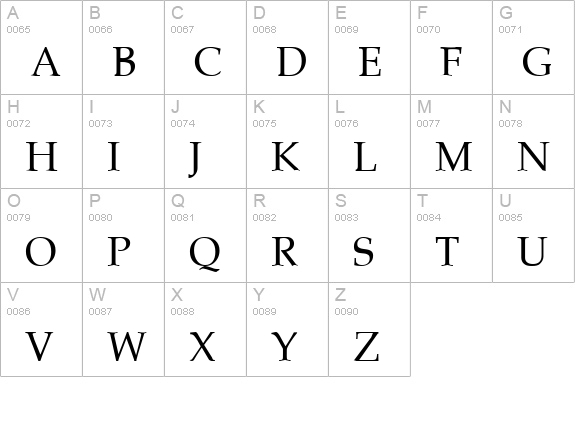
Palatia Regular Font Details
Palatia Regular is the standard, neutral variant in the Palatia typeface family \xE2\x80\x94 well suited to general body text, paragraphs, and standard typographic work.
Palatia Regular is a versatile and elegant font that embodies a perfect balance between classic and modern design elements. Its graceful curves and clean lines make it a timeless choice for a wide range of applications, from print materials to digital projects. This font exudes professionalism and sophistication, making it ideal for corporate branding, editorial layouts, and high-end product packaging. With its moderate x-height and well-proportioned letterforms, Palatia Regular ensures excellent readability in both small and large sizes. What sets Palatia Regular apart is not only its impeccable design, but also the fact that it is freely available to download at FontsMarket.com. This means that designers, typographers, and enthusiasts can enjoy the benefits of this exceptional font without any cost. Whether you are a professional designer or a hobbyist, Palatia Regular allows you to elevate your projects without breaking the bank. With its extensive character set, Palatia Regular supports multiple languages, making it a valuable asset for international projects. The font includes a variety of OpenType features, such as alternate characters, ligatures, and swashes, providing endless possibilities for creative typography. Palatia Regular is a true workhorse font that effortlessly combines elegance and functionality. Its timeless appeal and availability as a free download on FontsMarket.com make it a must-have for any designer's toolkit. Discover the beauty and versatility of Palatia Regular today and take your designs to new heights.